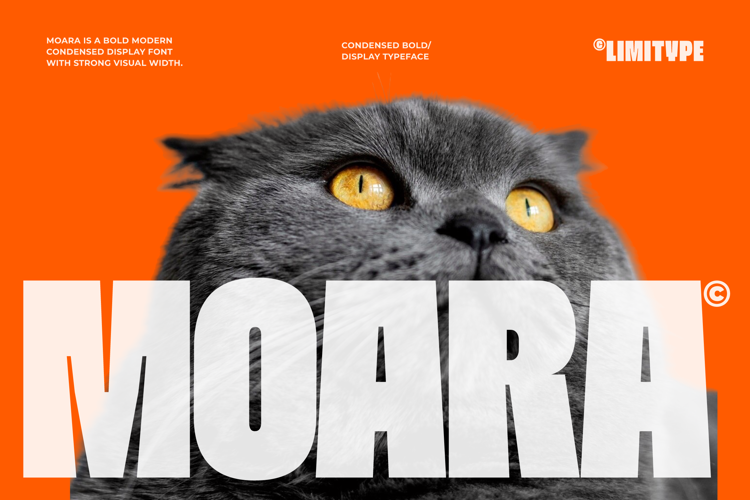
Moara - Bold Condensed Font
Moara is a modern bold condensed display font designed to deliver a strong and impactful visual presence. Its slim yet compact proportions create a clean, contemporary, and highly legible appearance. Moara is well suited for headlines, posters, branding, logos, packaging, and various design applications that require a confident, solid, and distinctive character.